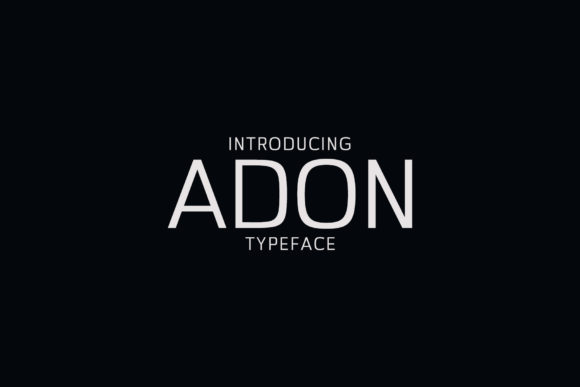
The Elegant Adon Font: A Designer’s New Best Friend
I’ll never forget the time I was working on a wedding invitation project, and my client asked for a font that was elegant, sophisticated, and would make their special day feel truly unforgettable. I scoured the internet, tried out dozens of fonts, but nothing seemed quite right. That was until I stumbled upon the Adon font. ✨
Adon is an elegant, tall, and thin lettered sans serif font that has quickly become one of my go-to choices for projects that require a touch of sophistication. Its distinct style is perfect for creating gorgeous wedding invitations, beautiful stationery art, eye-catching social media posts, and much more!
- ✨ Elegant and sophisticated design that’s perfect for high-end projects
- 🎉 Extensive OpenType features, including glyphs and stylistic alternates
- 💻 Works beautifully on both digital and print platforms
While Adon is an amazing font, there are a few things to keep in mind: 🤔
- ⚠️ Some of the more intricate glyphs can be a bit finicky to work with, especially for beginners
- ⚠️ The font’s tall and thin design can make it more challenging to pair with other fonts
The Story Behind Adon
Adon was designed by a team of typographers who wanted to create a font that was both elegant and versatile. Inspired by classic sans serif fonts, they added a modern twist to create a truly unique design. The result is a font that’s perfect for designers, crafters, and creative hobbyists who want to add a touch of sophistication to their projects.
Q: What is the best way to pair Adon with other fonts?
A: Adon pairs beautifully with clean and minimalist fonts, such as Mont or Maison Neue. Experiment with different font combinations to find the perfect pairing for your project.
Q: Is Adon available in different weights and styles?
A: Yes, Adon comes in a range of weights and styles, including regular, bold, and italic. Experiment with different weights and styles to add visual interest to your design.